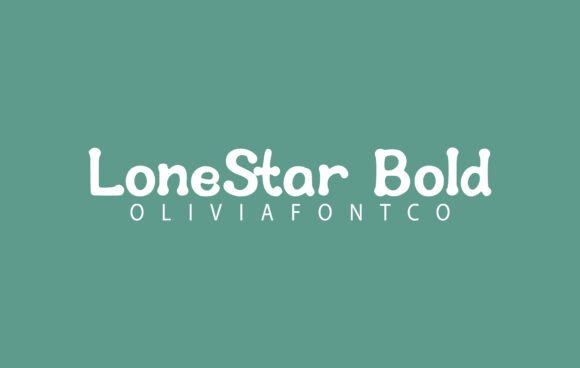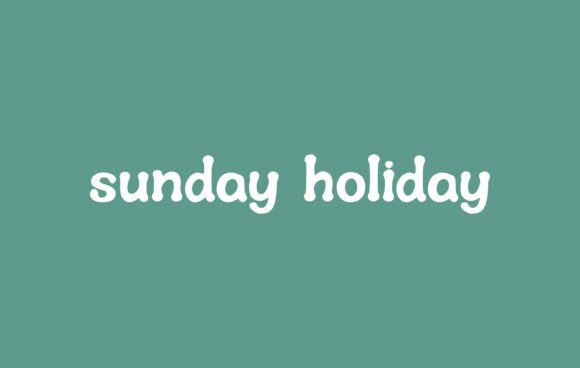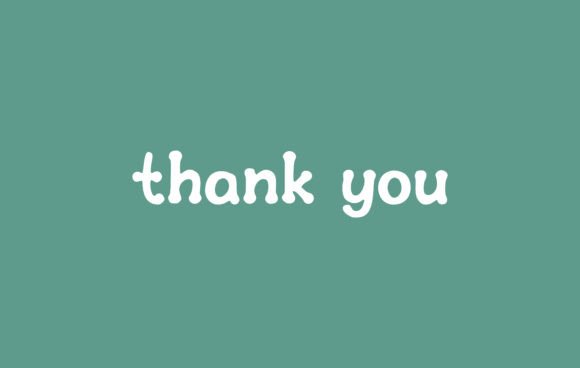
Lonestar Bold Font
About the Lonestar Bold Font
Explore the possibilities with Lonestar Bold Font, a font that offers both beauty and functionality. LoneStar Bold font is an authentic handwritten font with a romantic touch. Expertly designed to be a true favorite, this font has the potential to take your creative ideas to the highest level
Lonestar Bold’s romantic, handwritten style shines in headlines, short text blocks on branding materials, and wedding invitations where its expressive nature adds personality. It’s less suitable for body text or UI elements due to its less consistent stroke weight and relatively large x-height, making extended reading difficult.
Pair Lonestar Bold with a clean sans-serif like Montserrat for a balanced contrast, or a classic serif such as Garamond for a more traditional feel. For a playful touch, consider pairing it with a script font like Great Vibes, but use sparingly to avoid overwhelming the design.
The font projects a bold yet friendly personality, ideal for brands aiming for a romantic, approachable, yet confident image. It works well for projects with a handcrafted or vintage aesthetic.
Lonestar Bold Font Usage Examples
Lonestar Bold Font Example